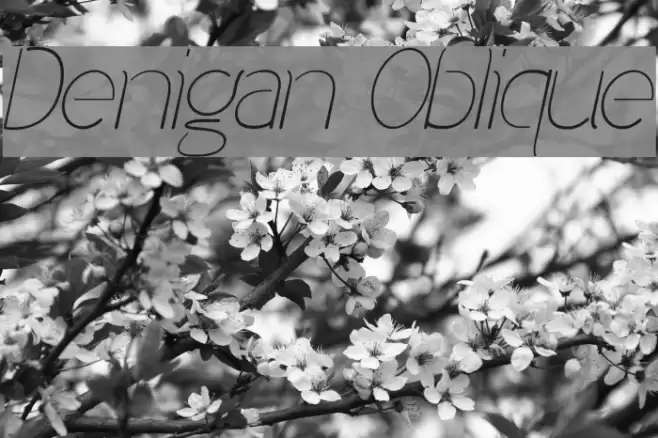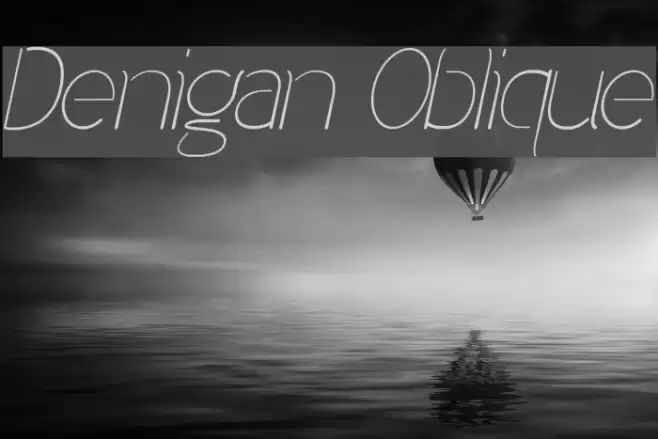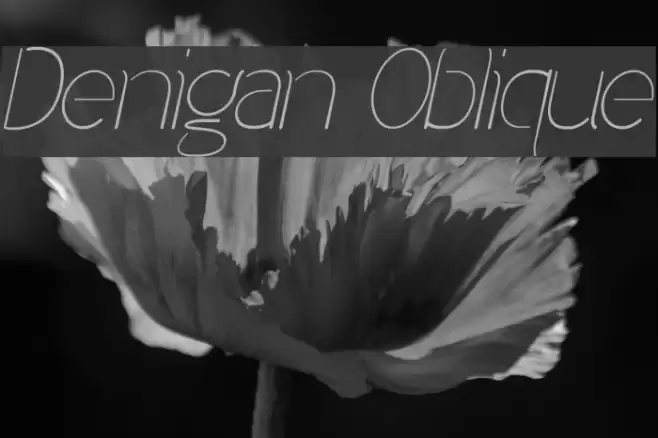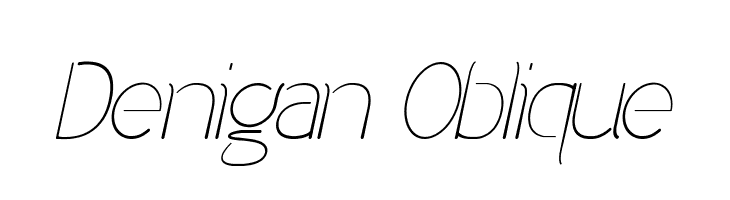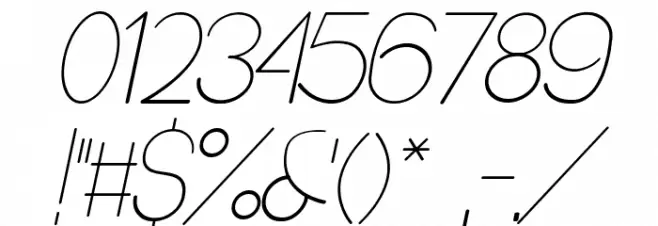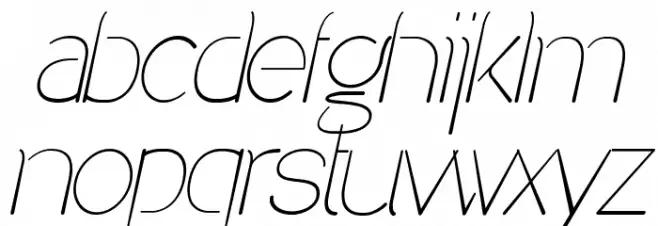
Denigan Oblique
This font features an elegant and modern oblique style with a sleek and streamlined appearance. The characters are slightly slanted, giving a sense of motion and dynamism. The strokes are thin, contributing to a light and airy feel, while maintaining clarity and readability. The uppercase letters are tall and narrow, with a consistent height, while the lowercase letters are more rounded and open. The numerals are proportional and align well with the overall style. Special characters are designed to match the font's aesthetic, ensuring a cohesive look across all text elements.
A sleek, modern oblique font with thin strokes and dynamic slant.
- Proposed Projects: Ideal for modern branding, fashion magazines, and dynamic advertising campaigns.
- Weight: Light
- Width: Condensed